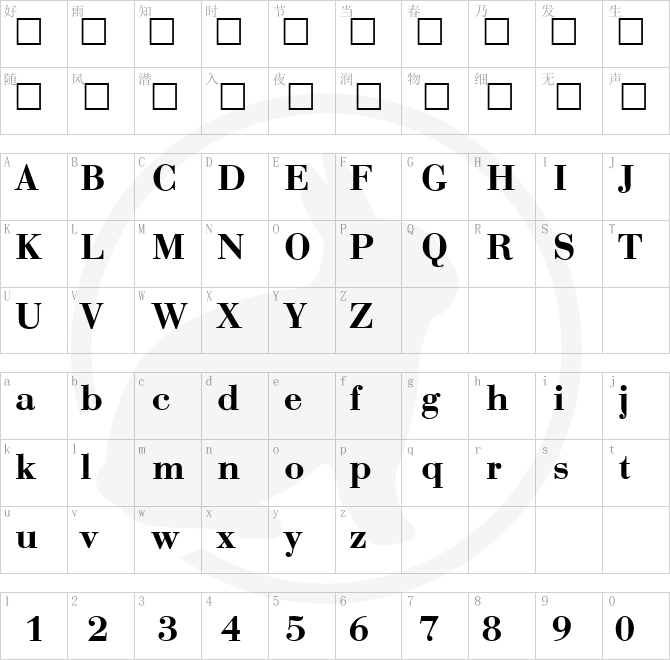
- Font Name:QTBodini
- Full Name:QTBodini Bold
QTBodini-Bold.ttf is a very beautiful artistic font, QTBodini-Bold.ttf is widely used in the design and printing of various books and pictures,QTBodini-Bold.ttf has a strong visual impact,QTBodini-Bold.ttf is a commonly used font in newspapers, magazines and books, and is used in posters, e-commerce Poster design, store design, logo design, font design and other fields.QTBodini-Bold.